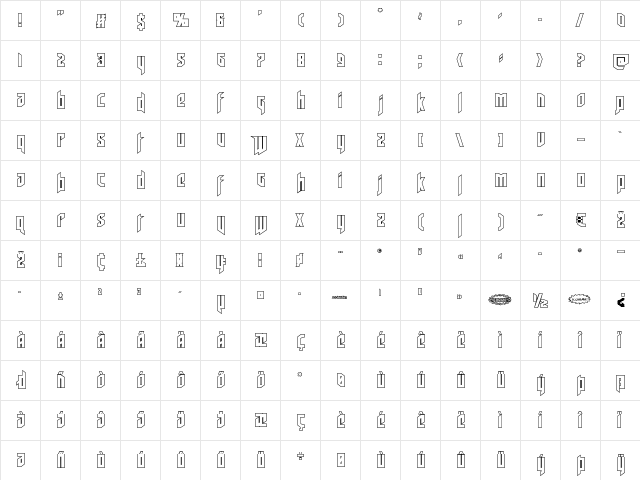
Deathshead Outline Regular Font Preview
Deathshead Outline Regular
Design Context for Deathshead Outline Typeface
Deathshead Outline carries an unsettling edge — its distorted letterforms are built to unsettle, perfectly suited to horror, Halloween, and dark creative work.
Ideal for Halloween projects, horror film titles, haunted house signage, and dark editorial design.
Font Pairing: Pair with a clean neutral sans-serif for body copy to let Deathshead Outline's character lead without overwhelming the composition.
Pro Tip: Deathshead Outline works best as a headline or focal element. Pair it against plain, neutral body text to amplify the contrast.